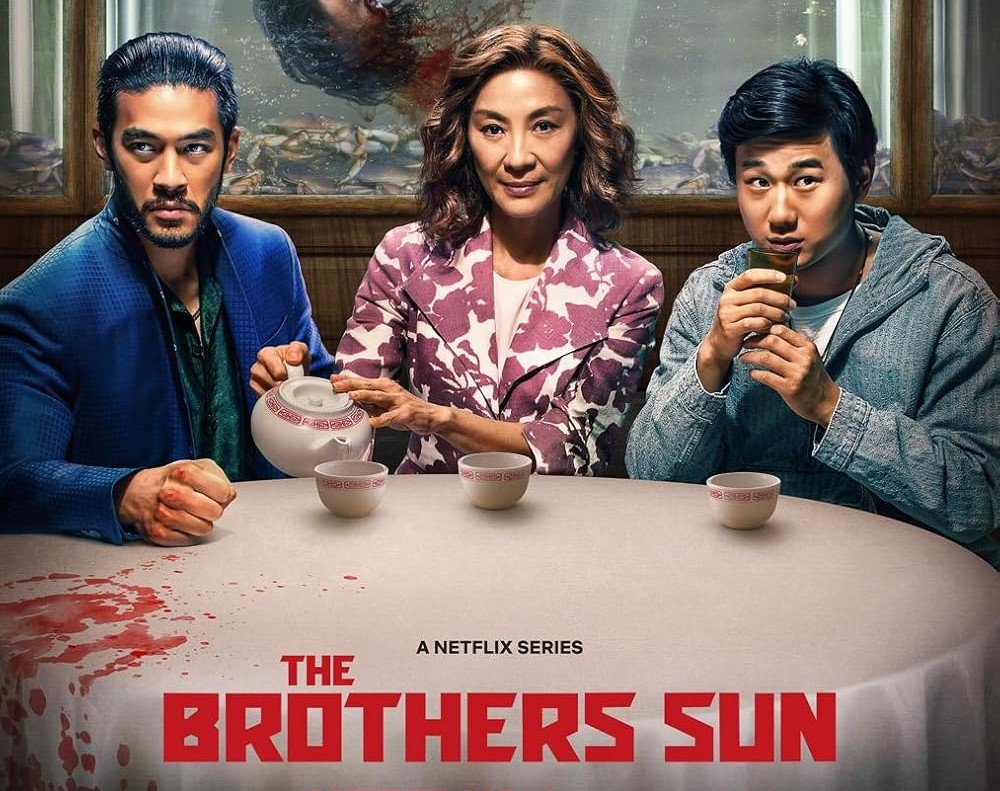
The Brothers Sun font moves with the same confident velocity as the Netflix series itself — sharp, kinetic, and built for impact. The official typeface is Racing by Sensatype Studio, a sleek, condensed display face from Sensatype Studio whose angular urgency perfectly mirrors the show’s blend of Taiwanese triad crime drama and Southern California family chaos. For those seeking free alternatives, Bulletproof BB brings a punchy, action-ready energy, while Take Me Out offers a similarly driven, contemporary boldness.
This typographic style sits squarely in the visual language of modern action-drama — clean enough to feel premium, aggressive enough to signal danger. It translates naturally to action film title treatments, crime thriller branding, sports and esports identities, martial arts event design, or any project that needs its typography to communicate speed and consequence simultaneously, the way a good action sequence does without wasting a single frame.